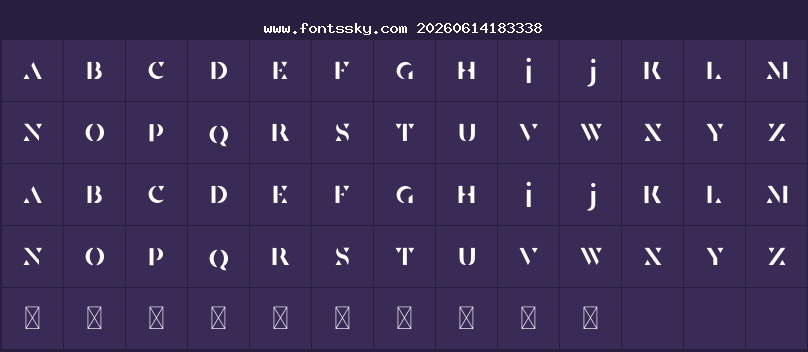
• Font Name: Senda Display
• Full Font Name: Senda Display
• Designer: BECO Creative Studio
About Senda Display.otf
Senda Display.otf is a modern, elegant sans-serif font designed for ultimate readability and visual harmony. Perfect for branding, headlines, web design, and print materials.